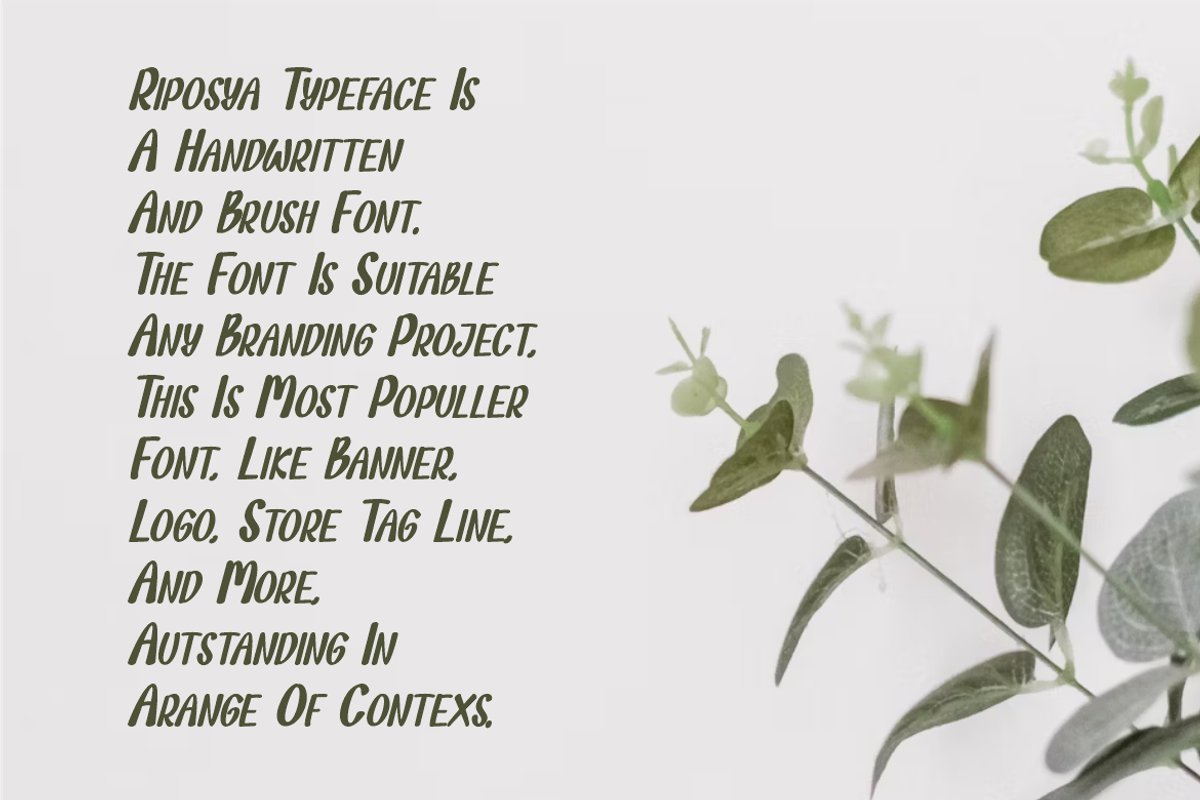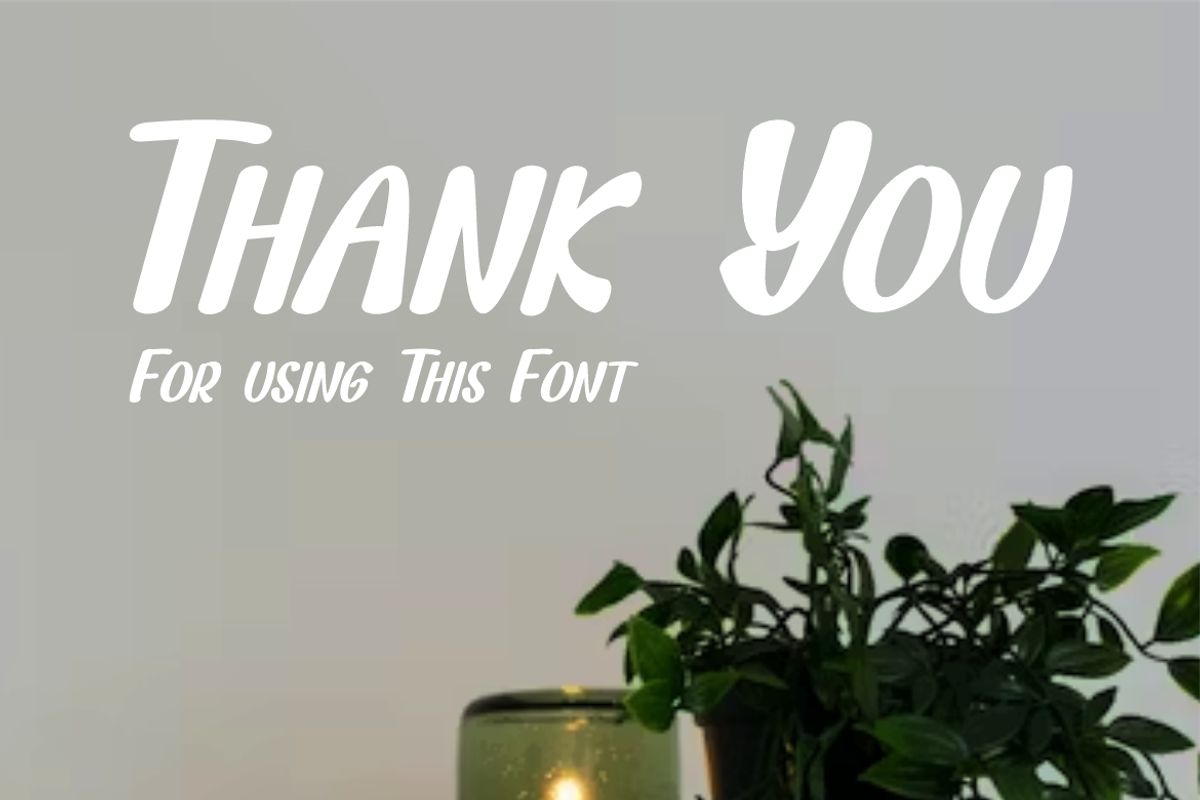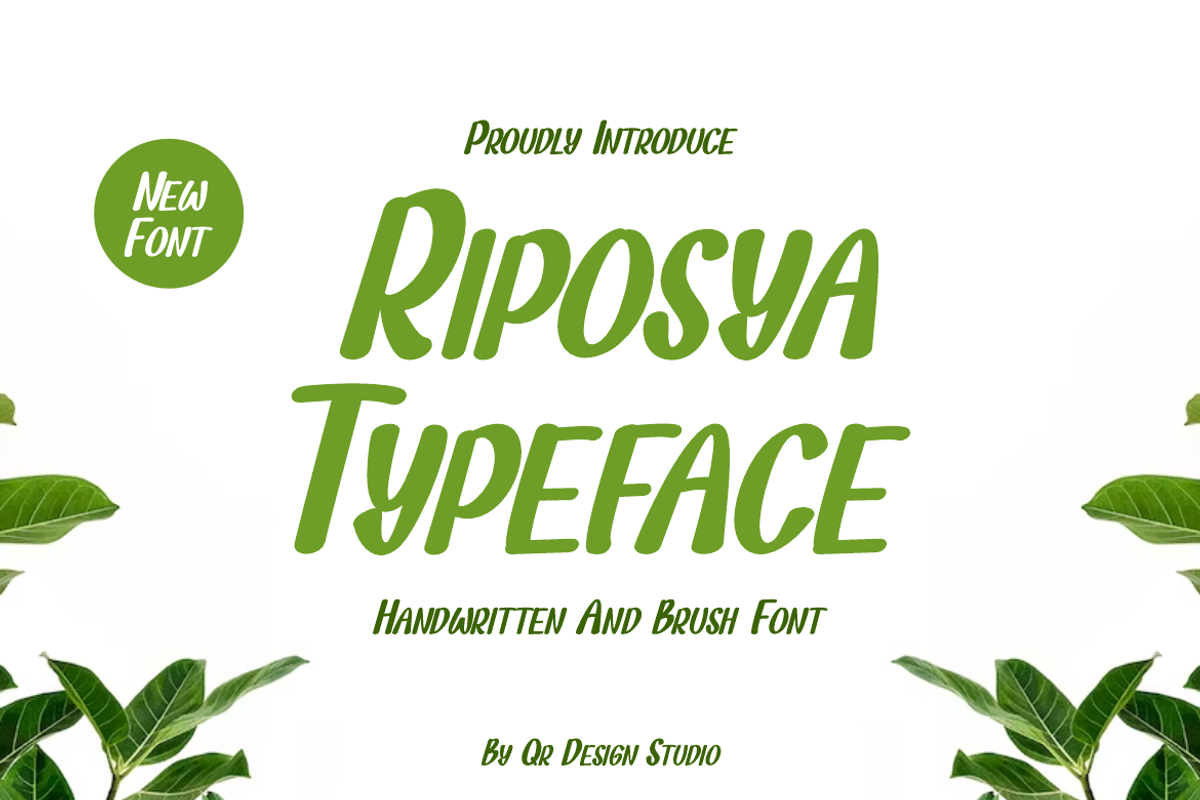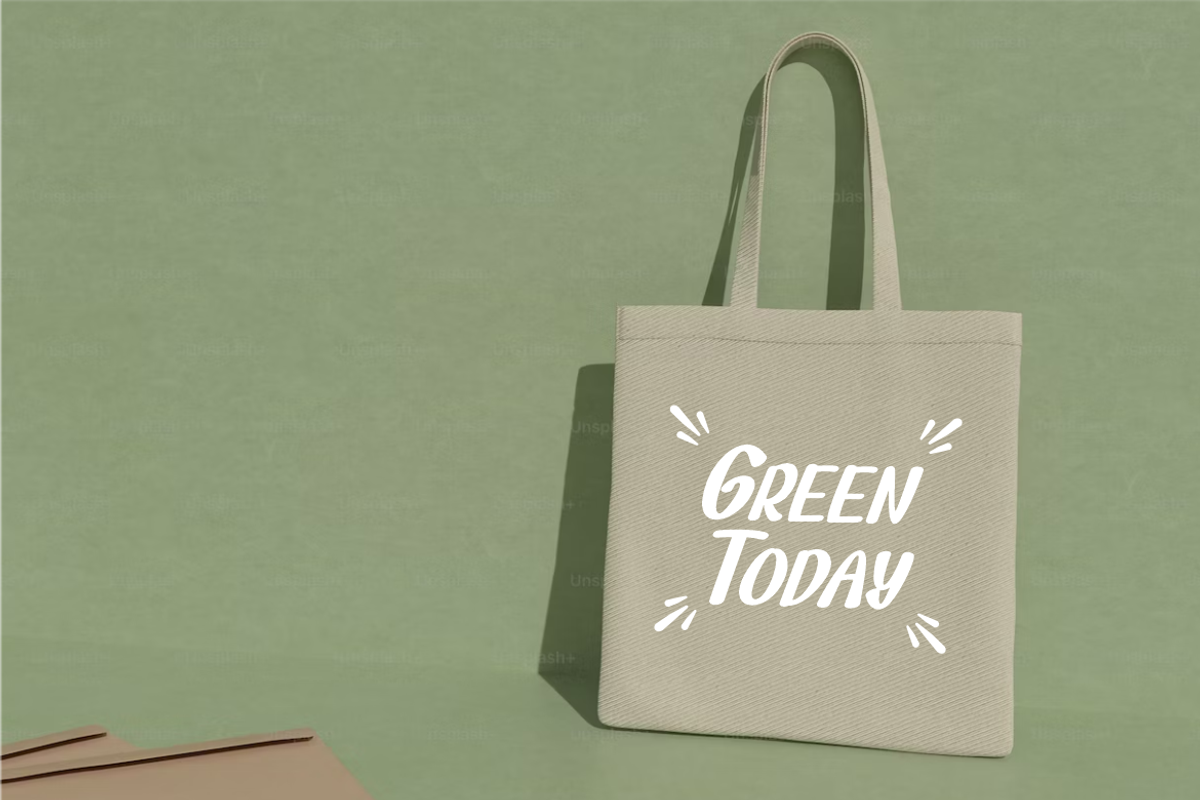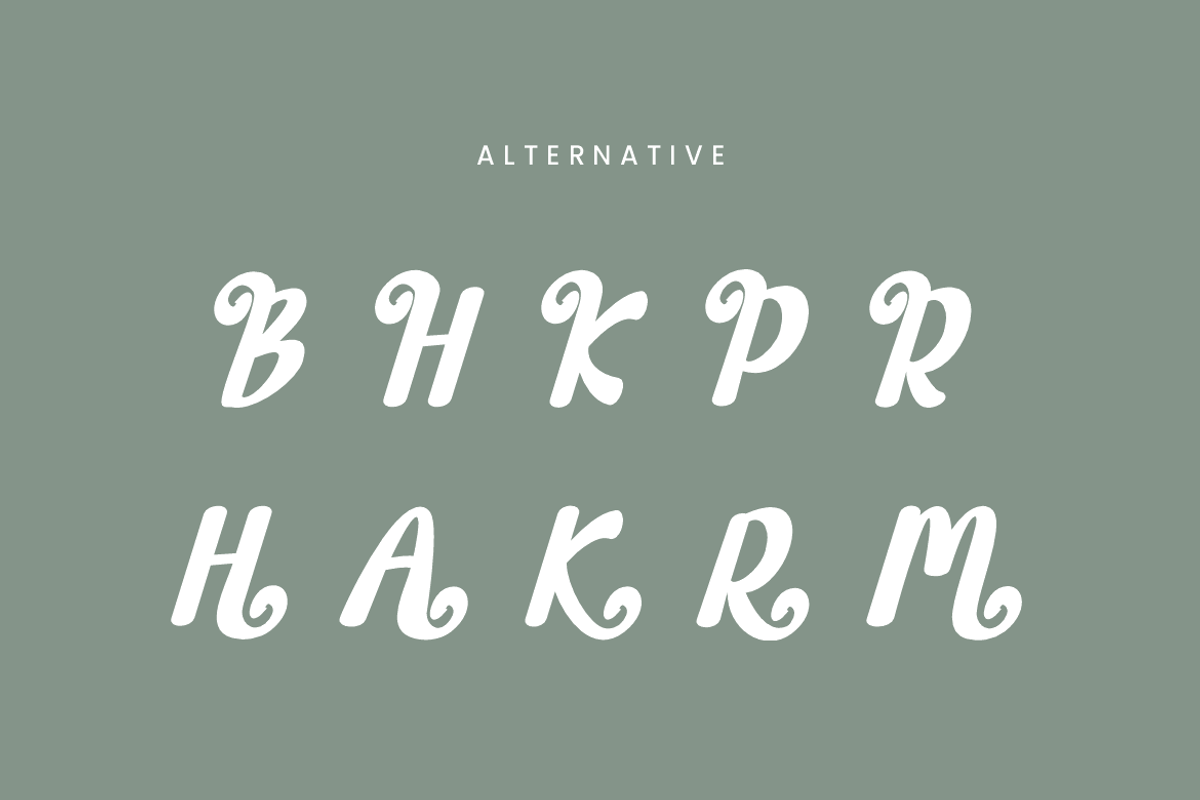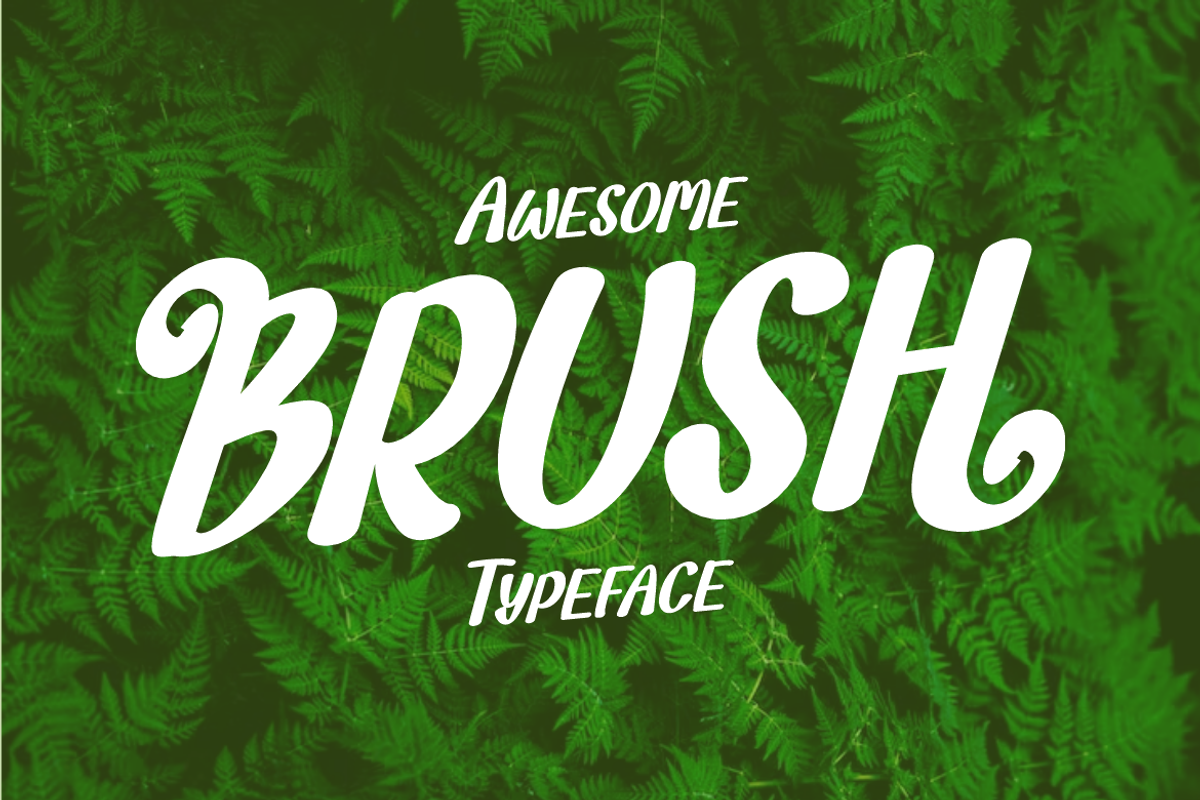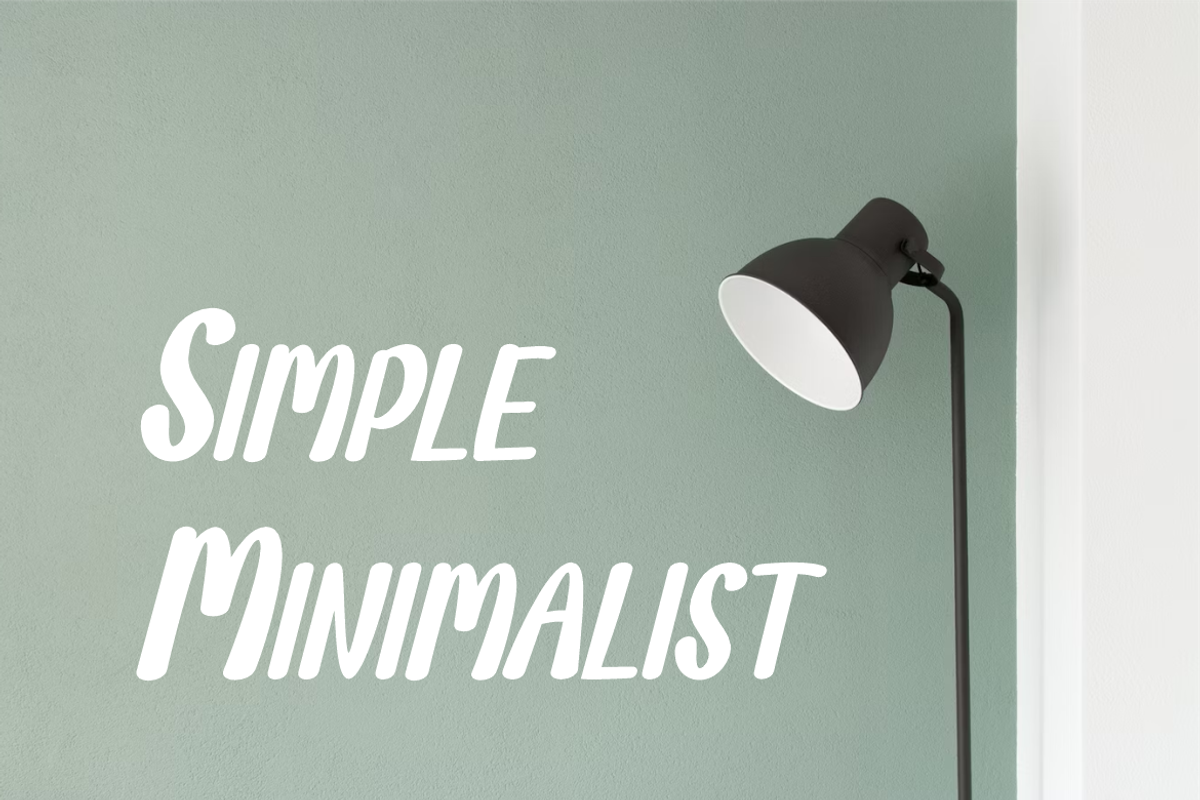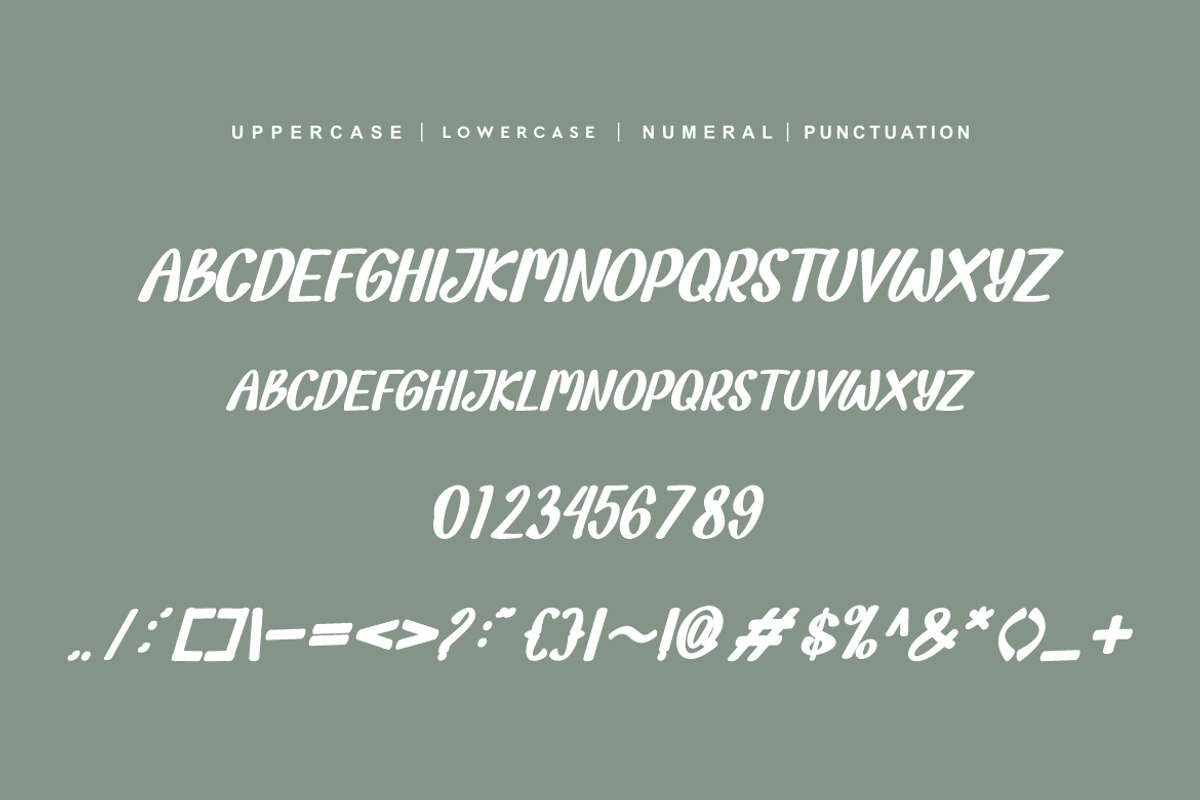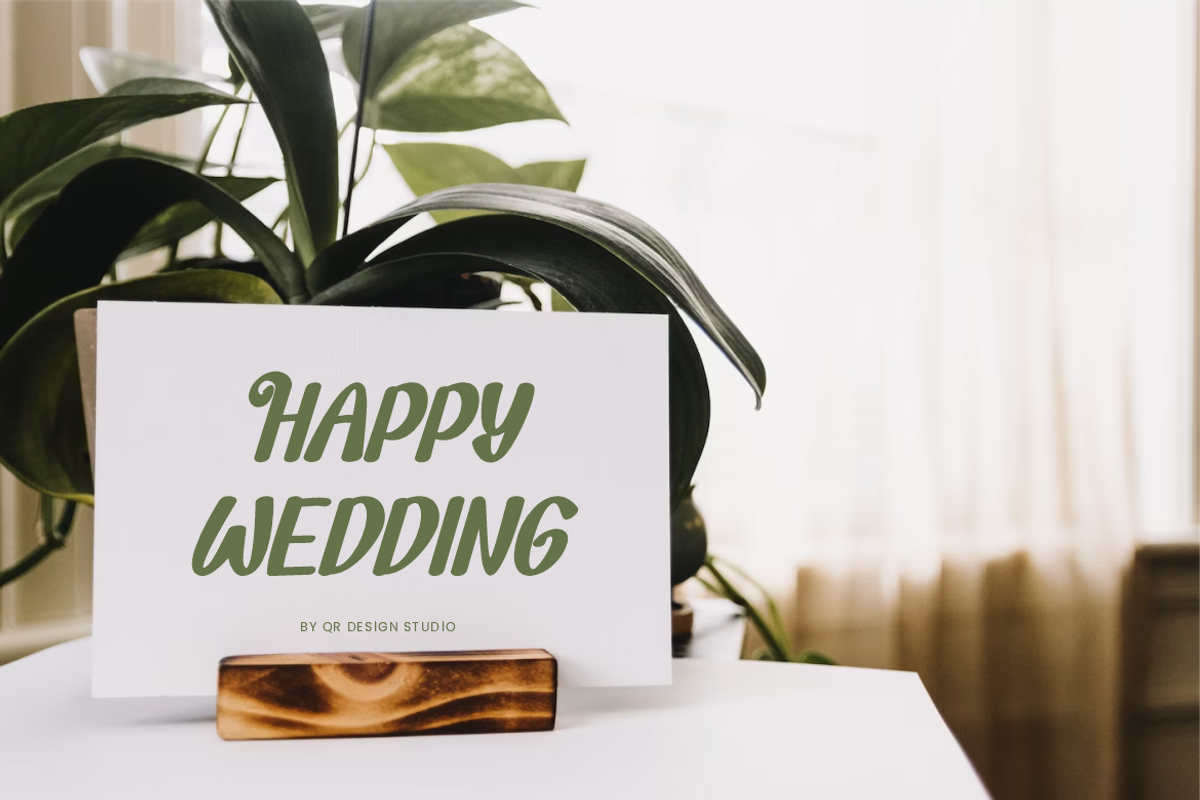
Riposya Typeface
Riposya Typeface Font is a bold and authentic display font. The font is suitable for any branding project like poster, thanksgiving, logo, sport, and many more. Outstanding in a wide range of contexts.